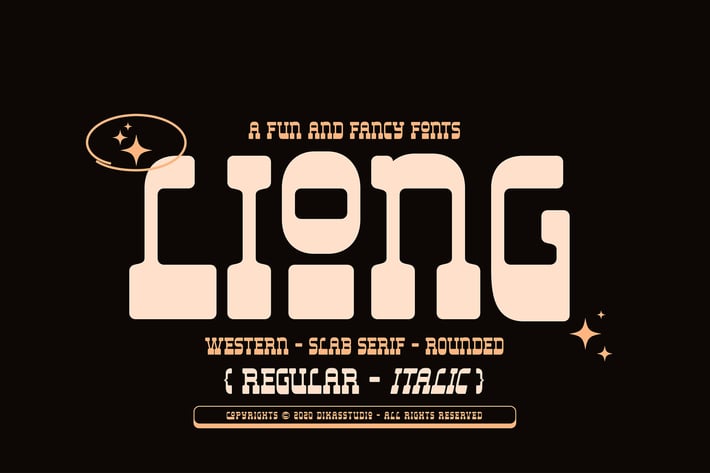
Liong - 2 Fonts Style
Liong is a fun and fancy slab serif typeface, they have a uniqe weight bar and slab inspired by retro western sign and poster . Liong comes with 2 style regular & italic, perfect for logos, badges, typography and any retro design needs.